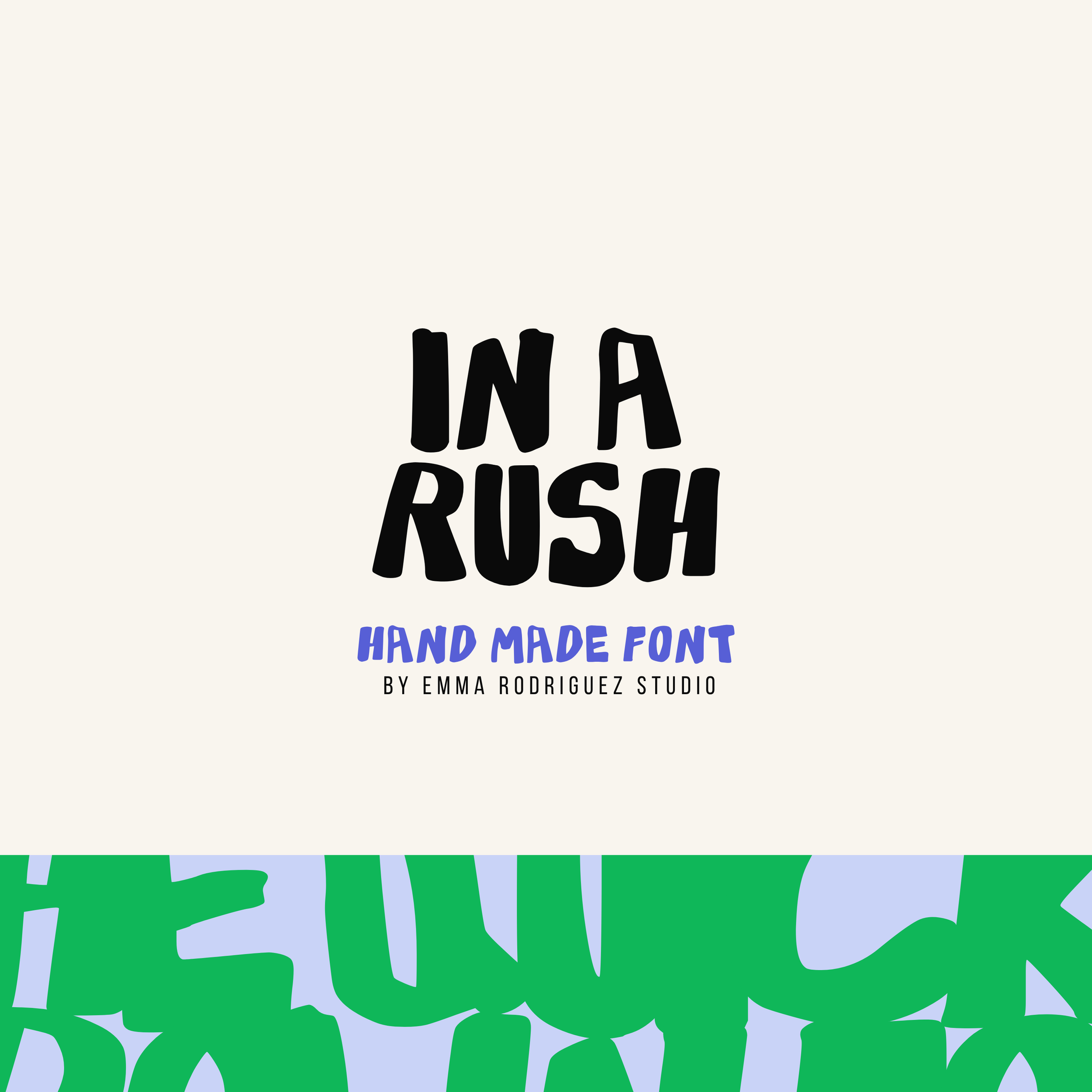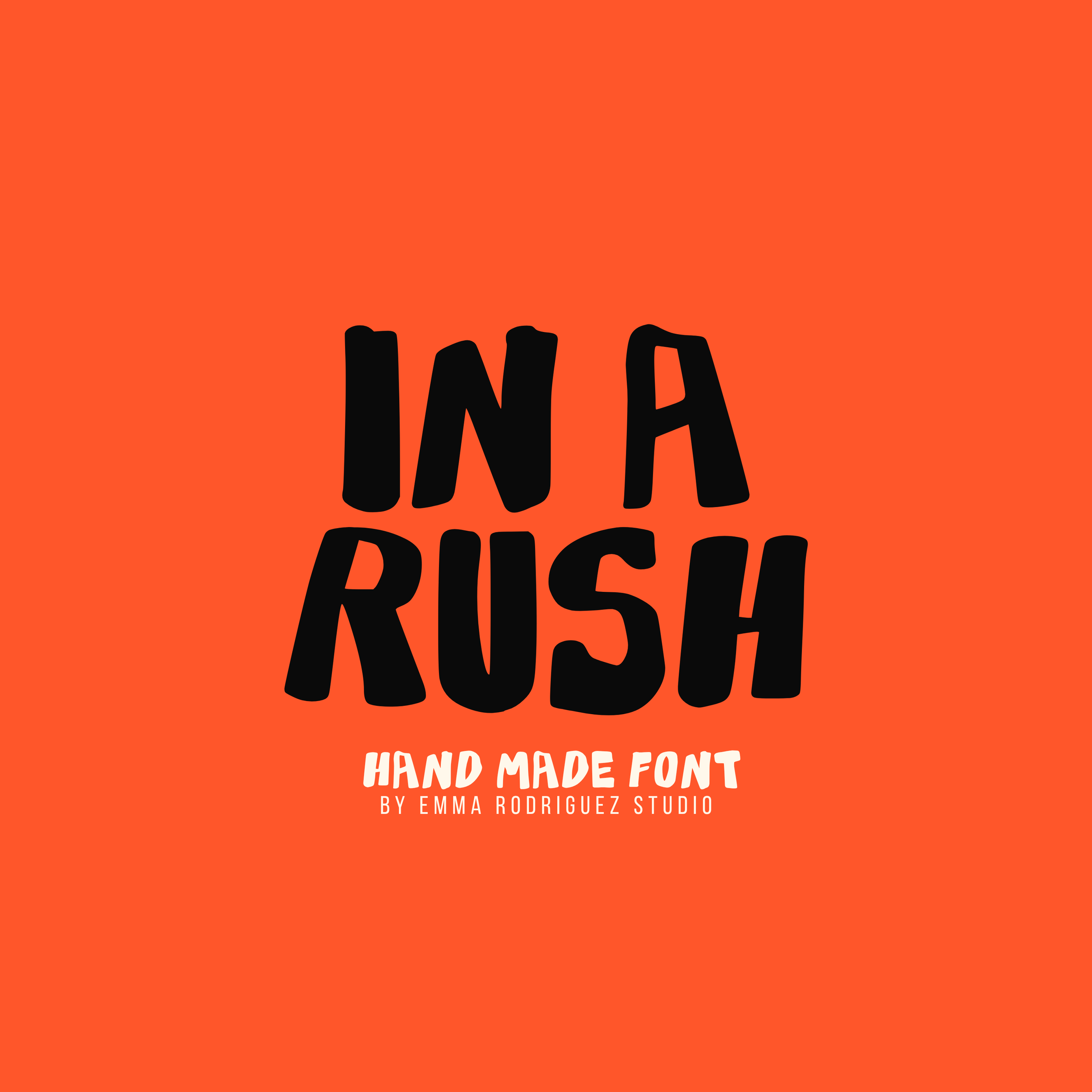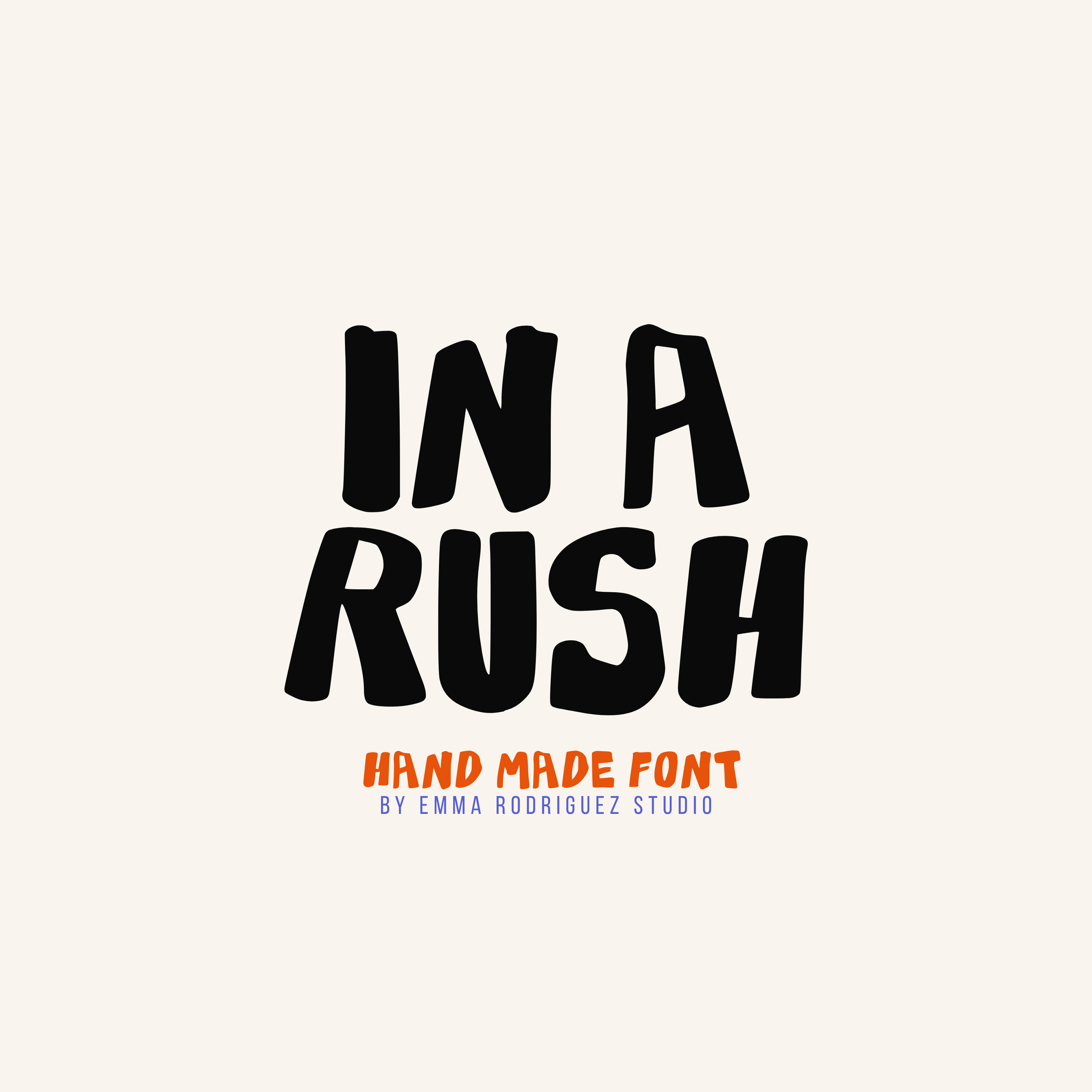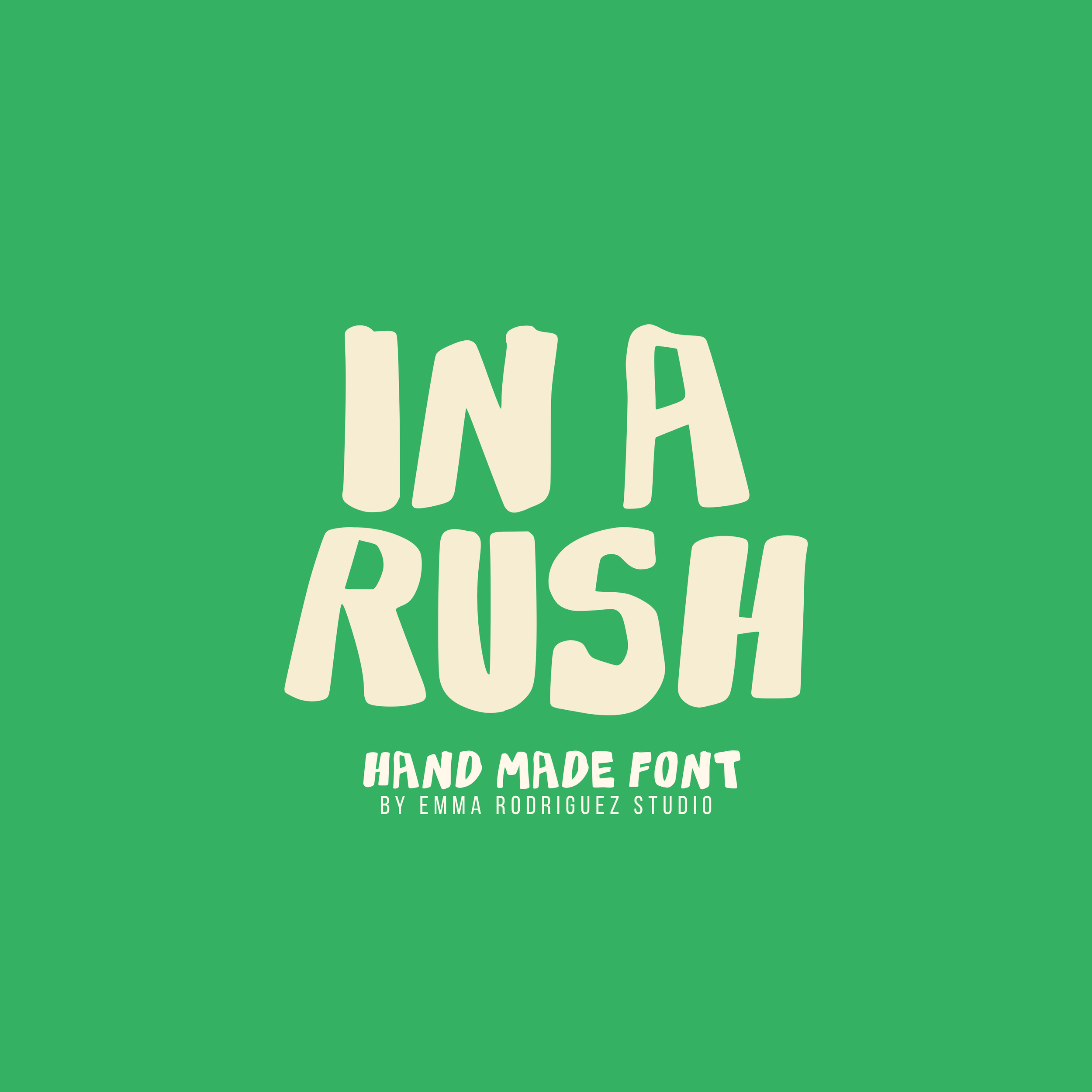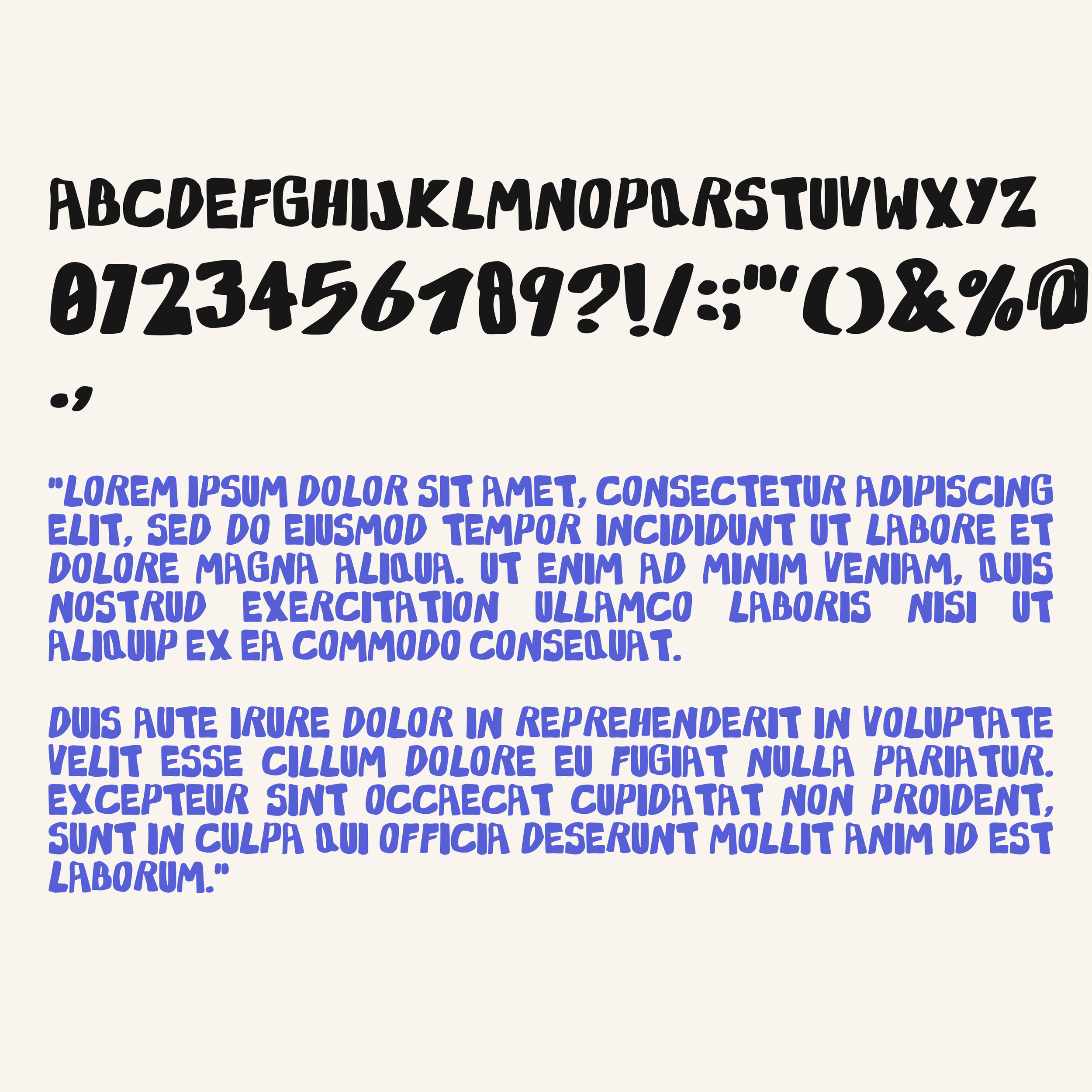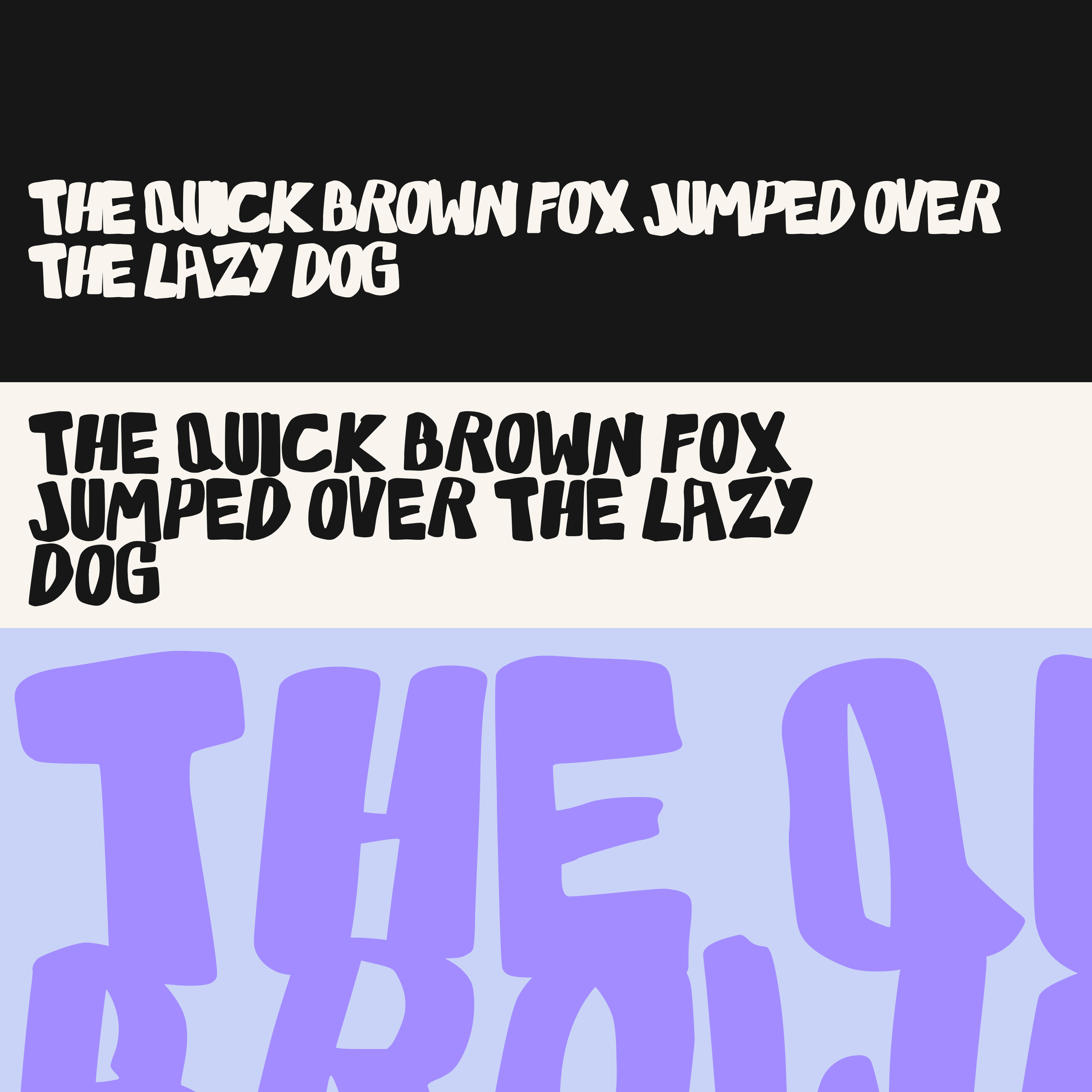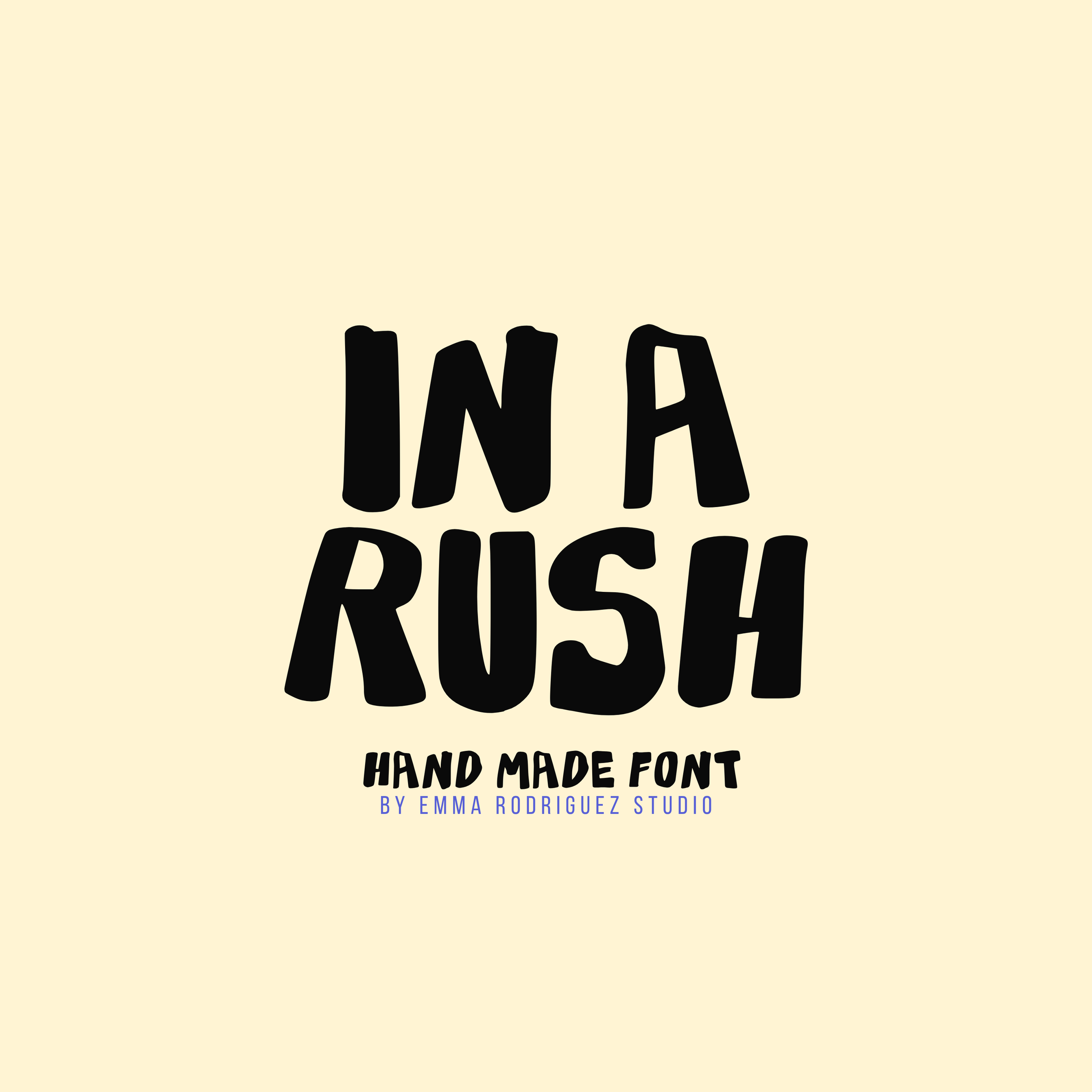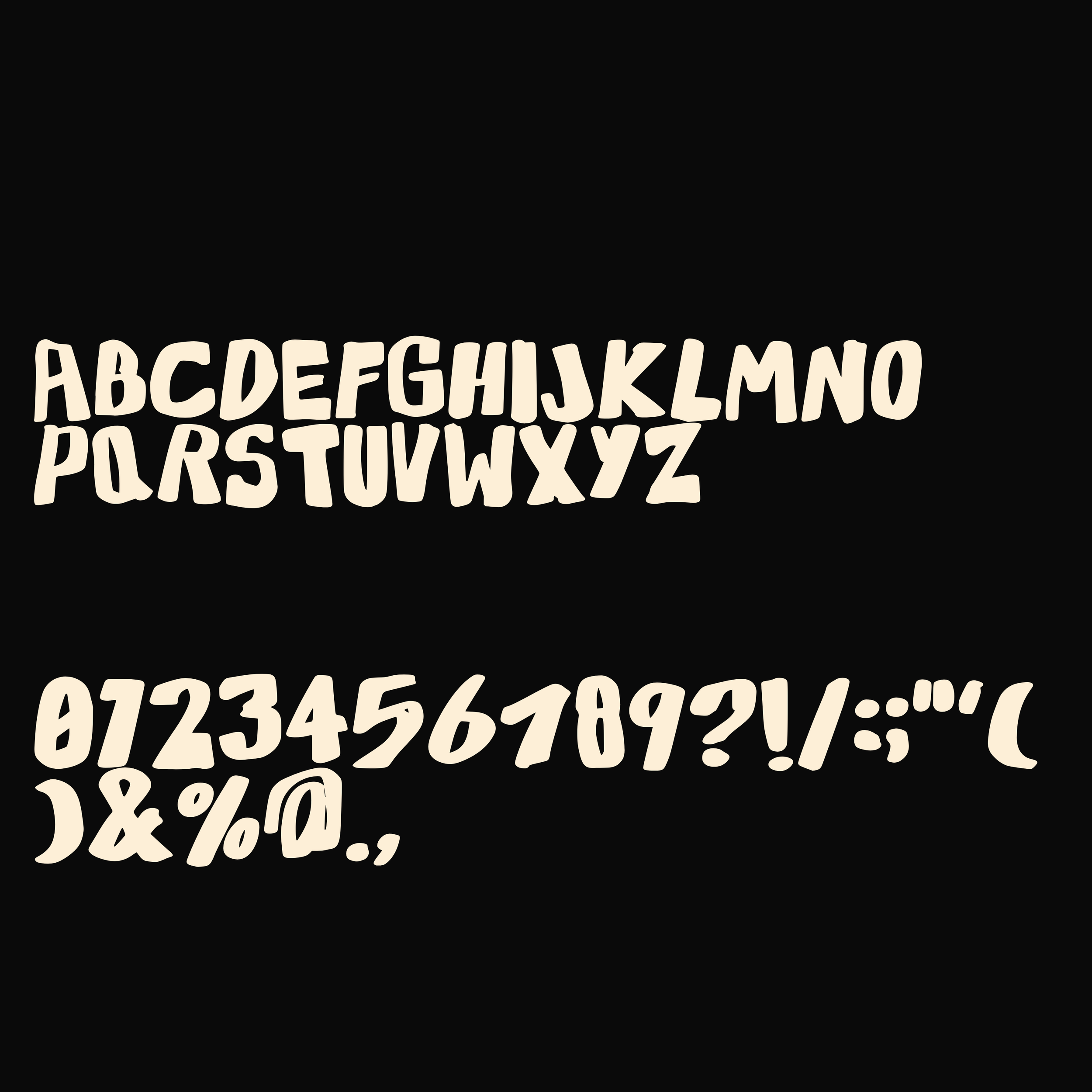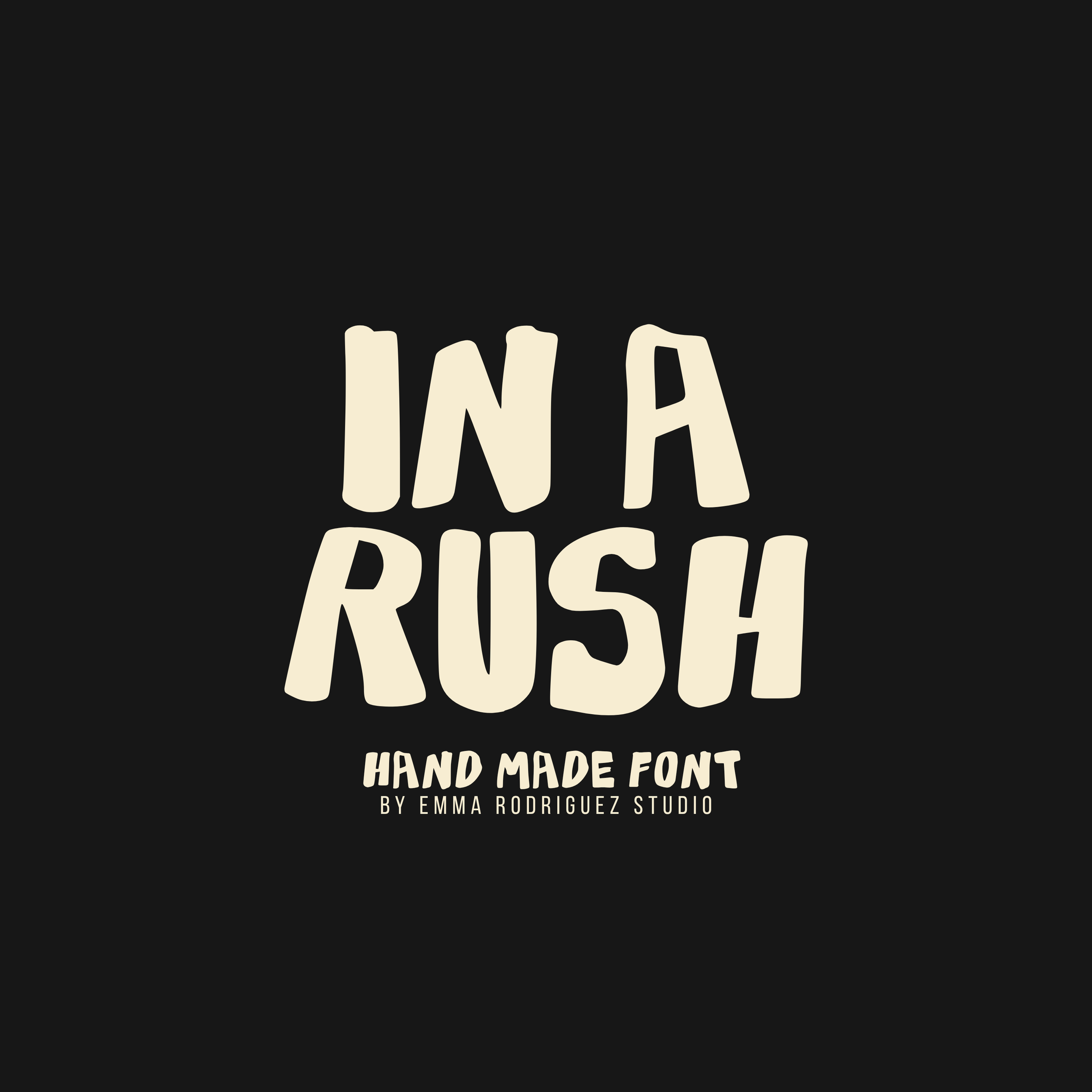
In A Rush Font - Thick Marker Type
In a Rush is a thick marker font combining graffiti-inspired handwriting, bold Y2K typography and quick hand-drawn lettering. Its chunky strokes and rushed, imperfect shapes create a confident display style suited to posters, music artwork, streetwear graphics, branding and contemporary editorial design.
The uneven edges and handwritten variations are intentional, giving the font the energy of lettering drawn quickly with a broad marker.
• Uppercase letter set
• Numbers and basic punctuation
Please note that In a Rush contains uppercase letters only. A lowercase version is not included.
Fonts by Emma Rodriguez Studio are made to have personality. Expect naive shapes, wonky details, playful imperfections and type that doesn’t take itself too seriously. They’re not designed for clean, minimal branding. They’re for bold, quirky, maximalist projects that need something a little stranger, sillier and more expressive.